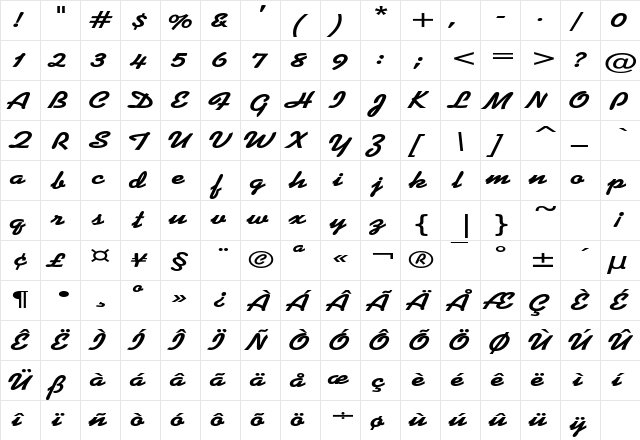
DinerScriptExtended Bold
Design Context for DinerScriptExtended Typeface
DinerScriptExtended brings a calligraphic fluidity to the page — its connecting strokes and expressive curves give it an unmistakably human quality. Its bold stroke weight gives it real presence on the page.
Font Pairing: Combine DinerScriptExtended with a simple geometric sans for maximum contrast — the tension between flowing curves and clean structure is a classic typographic pairing.
Pro Tip: Use DinerScriptExtended for short runs of text — names, titles, or taglines. Extended body copy in script faces tires the eye quickly.